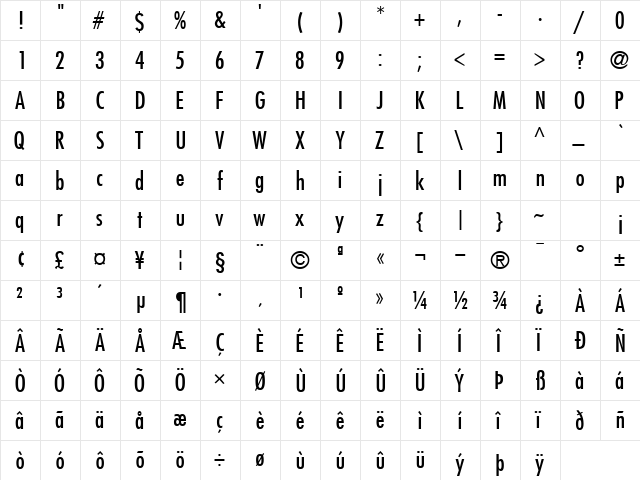
KudosCondSSK Regular Font Preview
KudosCondSSK Regular
Design Context for KudosCondSSK Typeface
KudosCondSSK is a composed and adaptable typeface that performs quietly and consistently across a wide range of design contexts. Its narrow stance lets it pack a punch even in space-constrained designs.